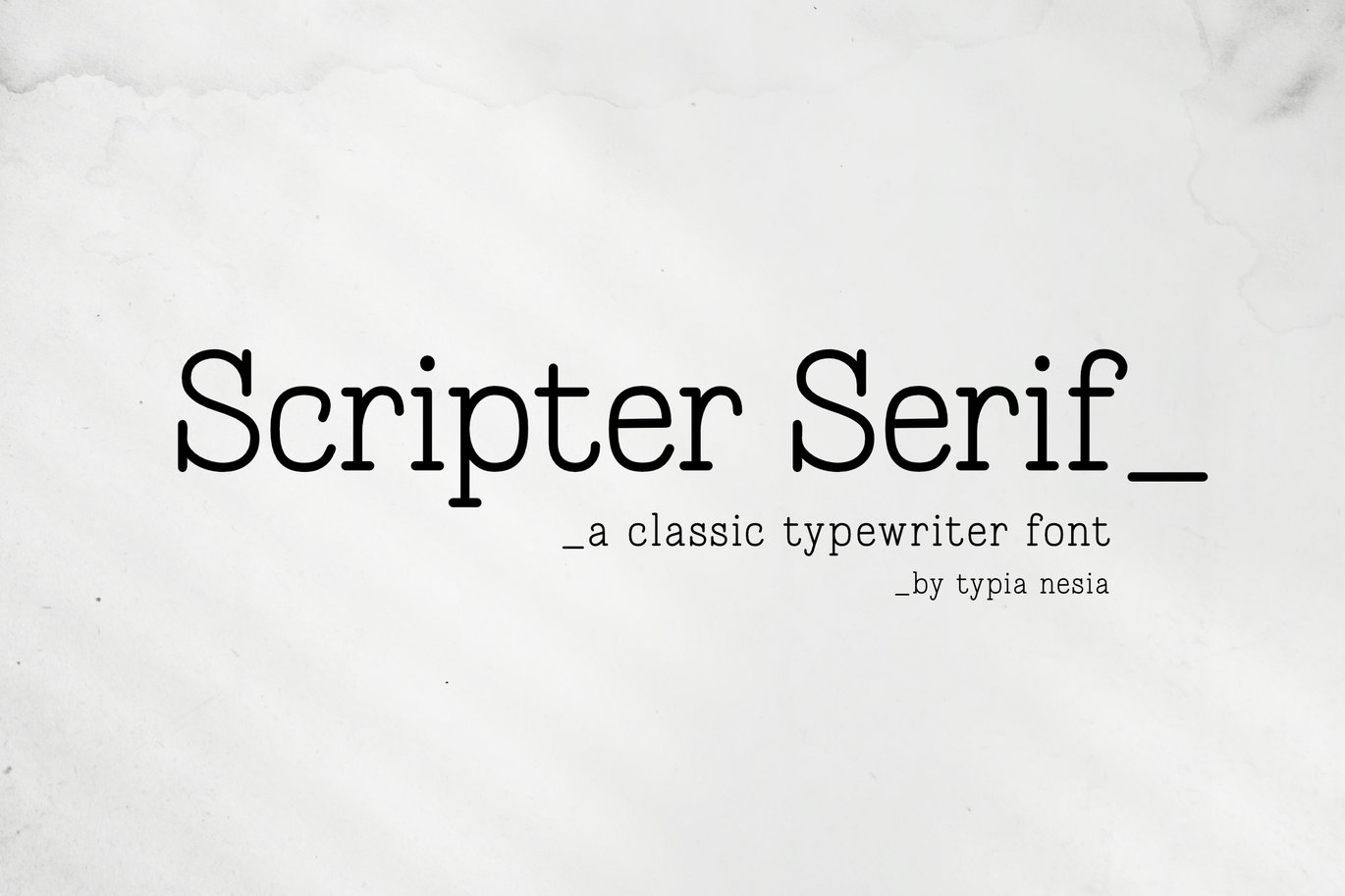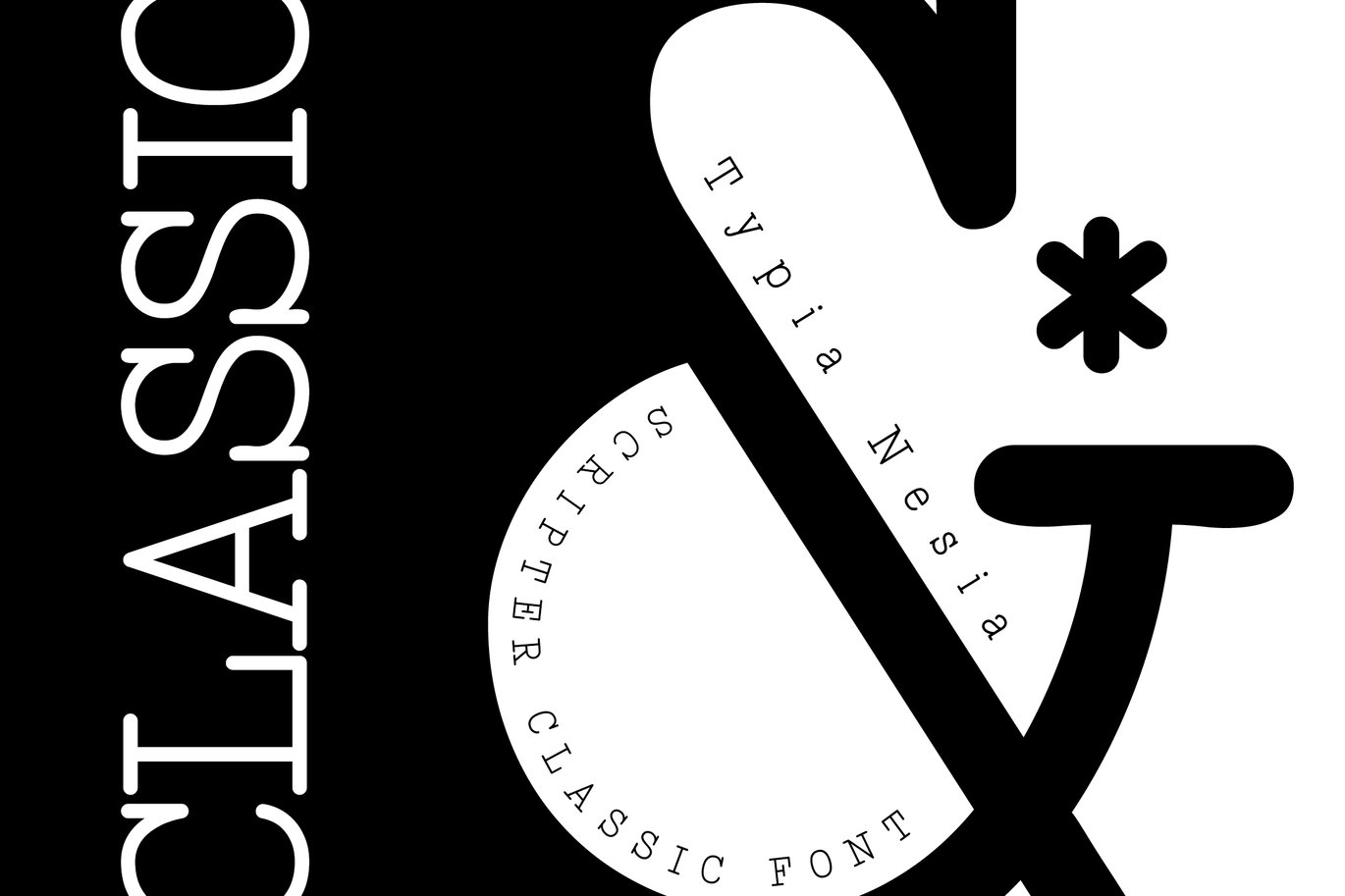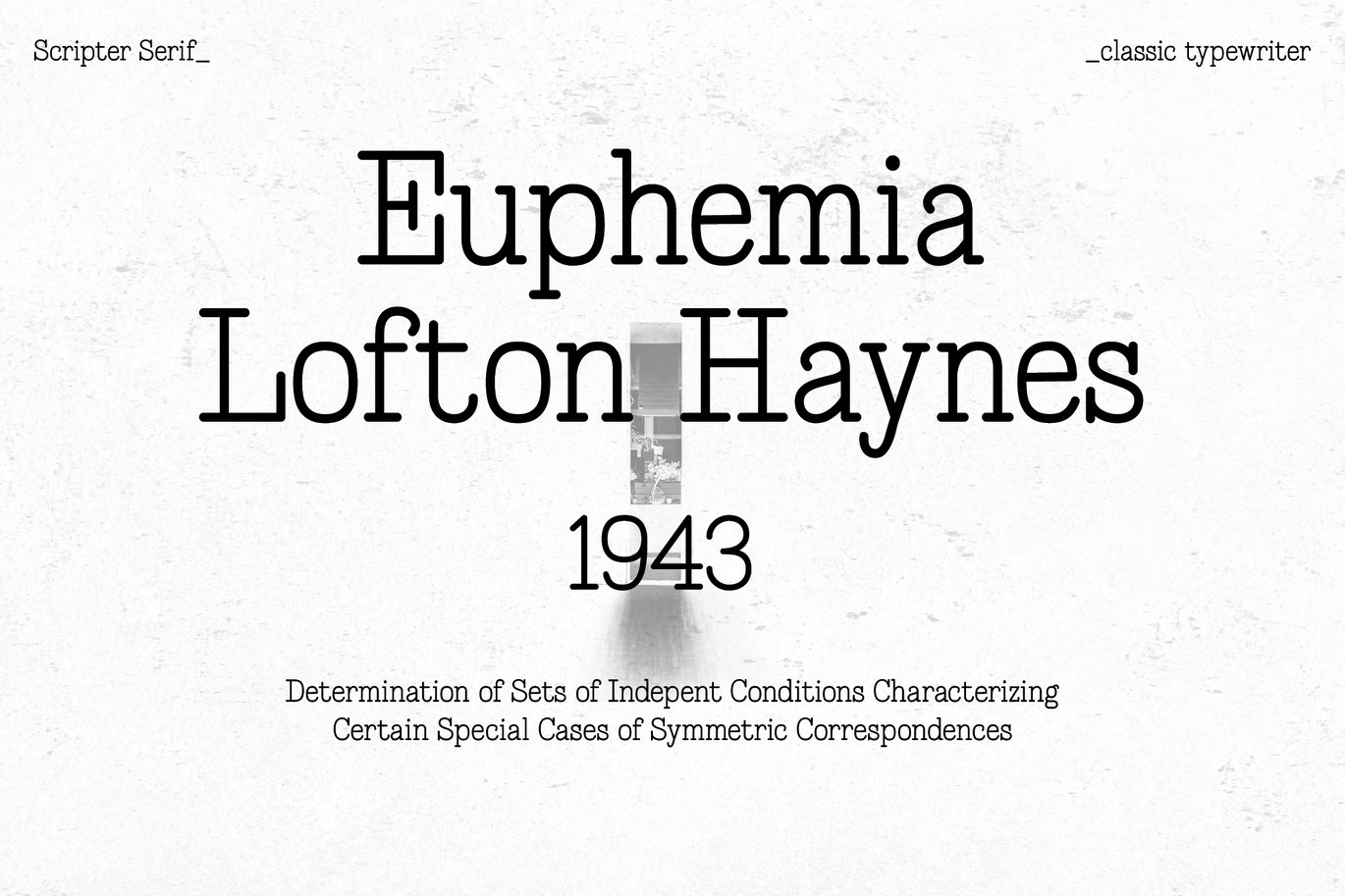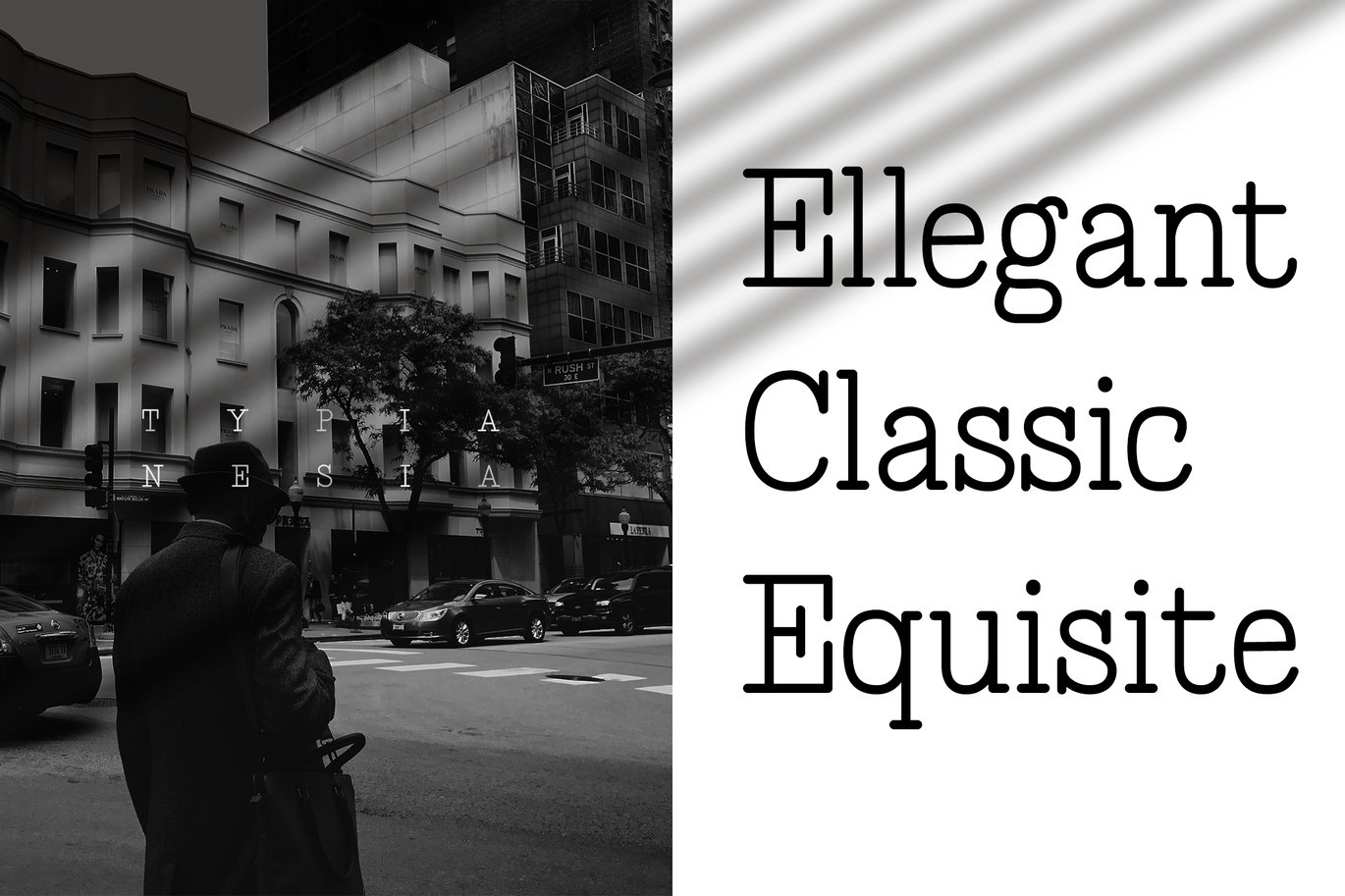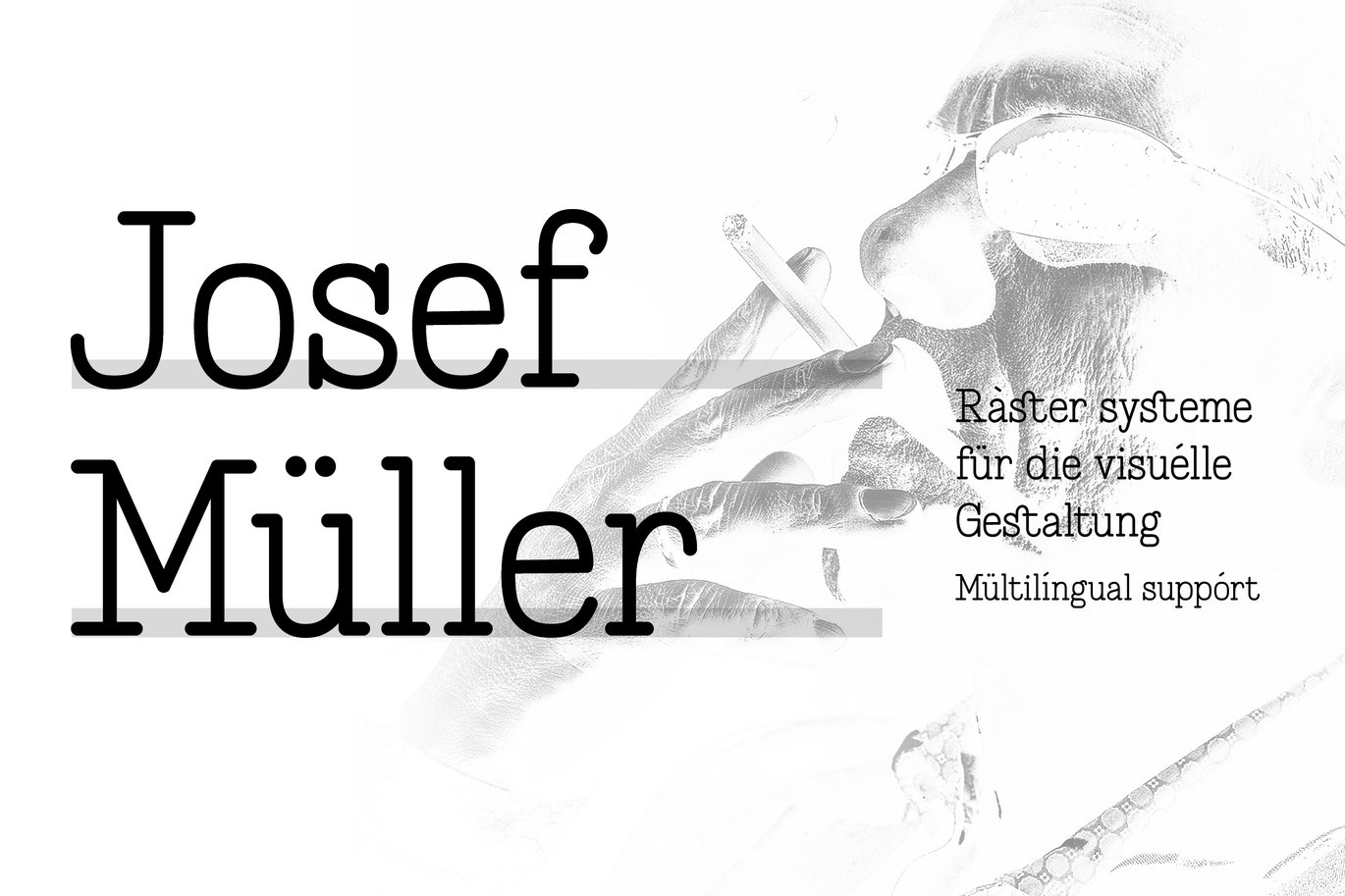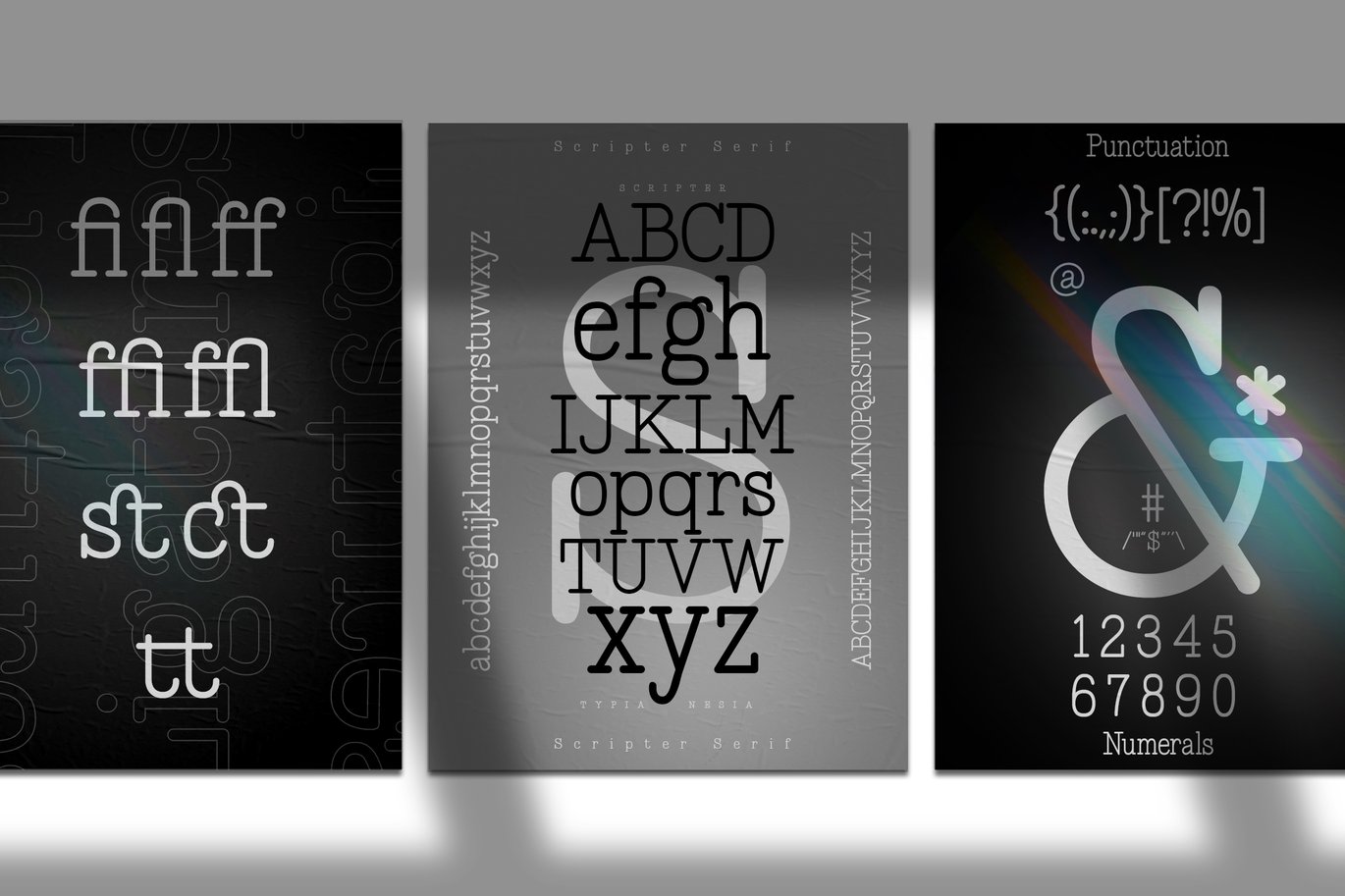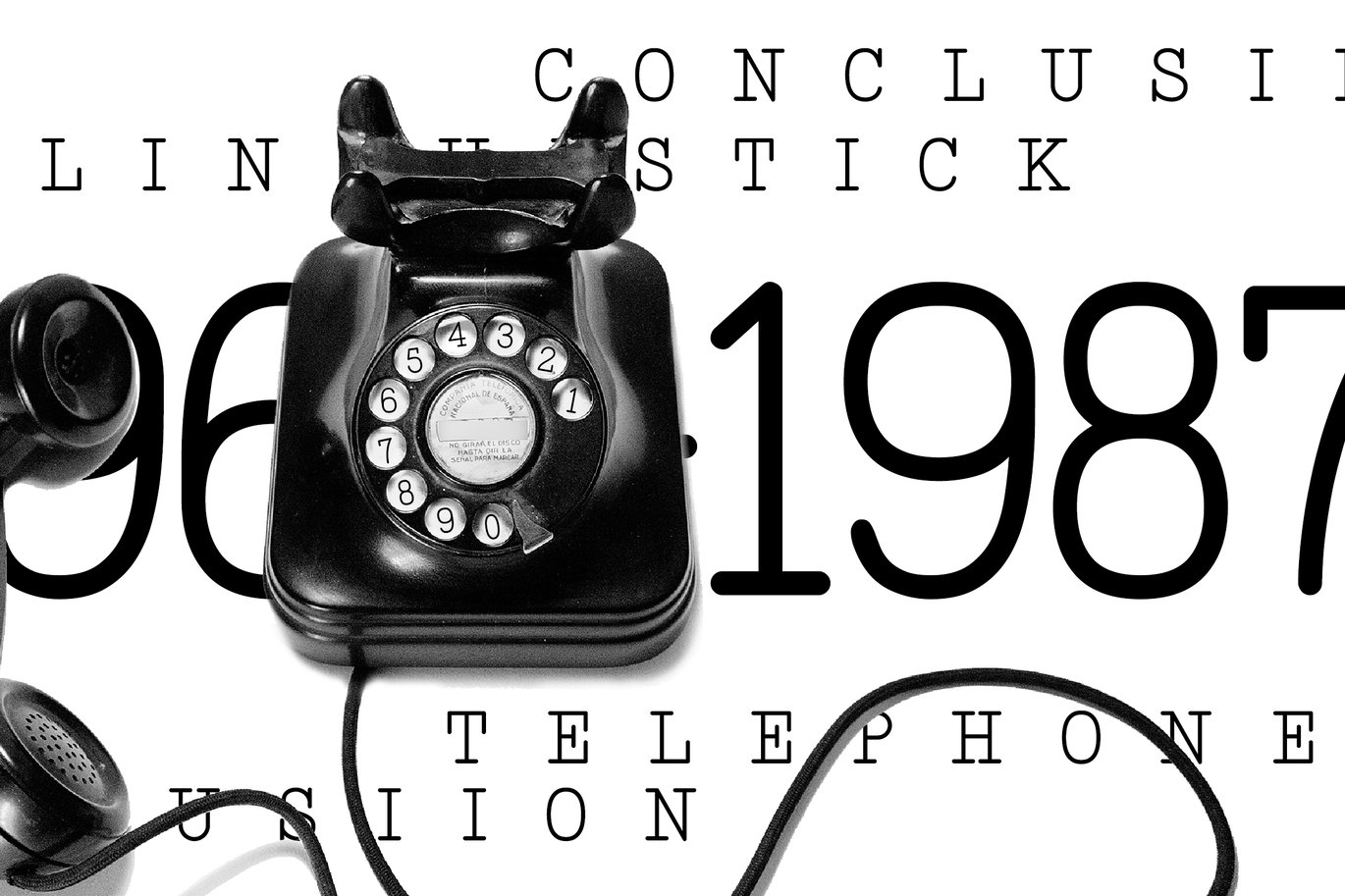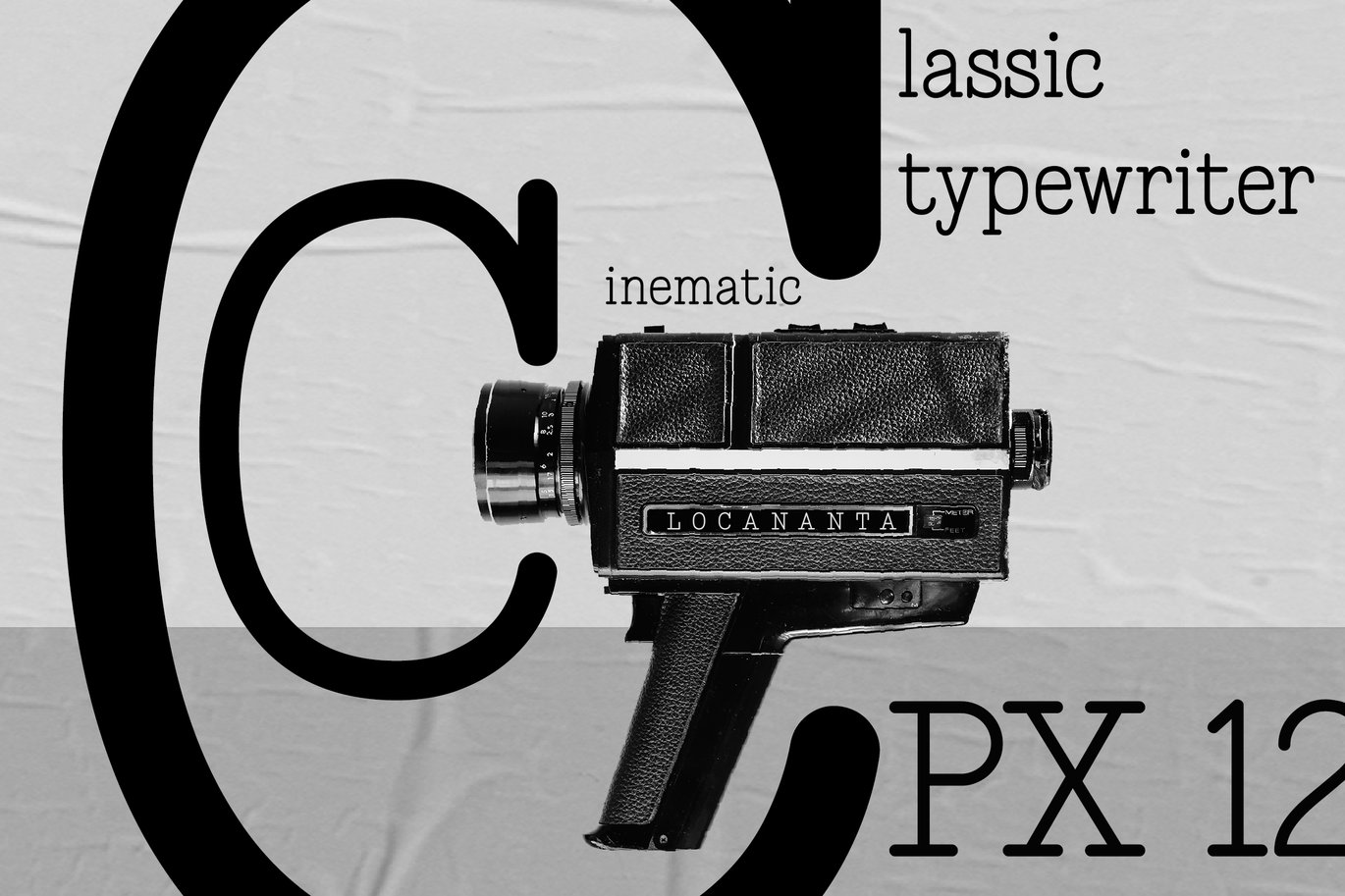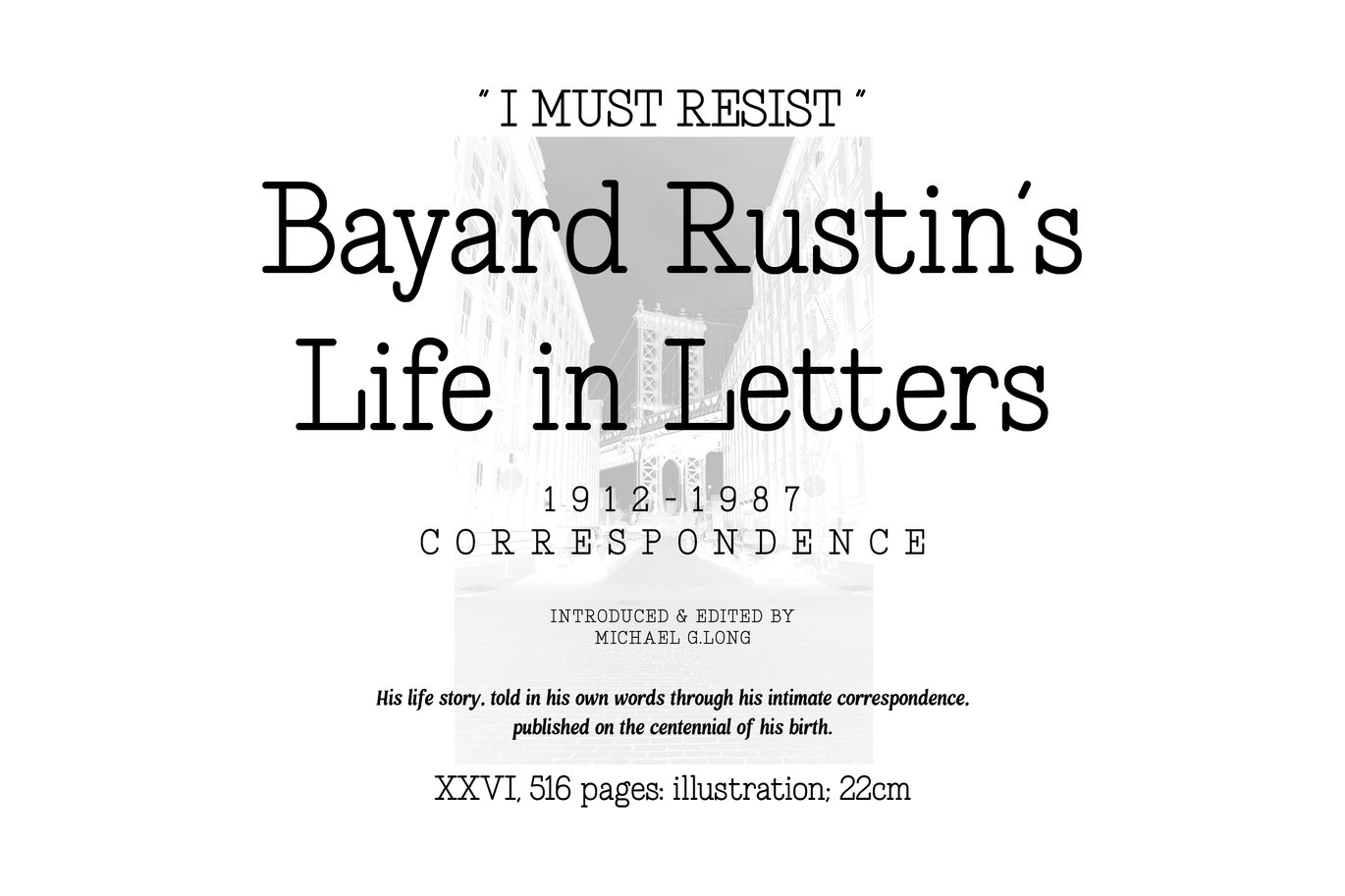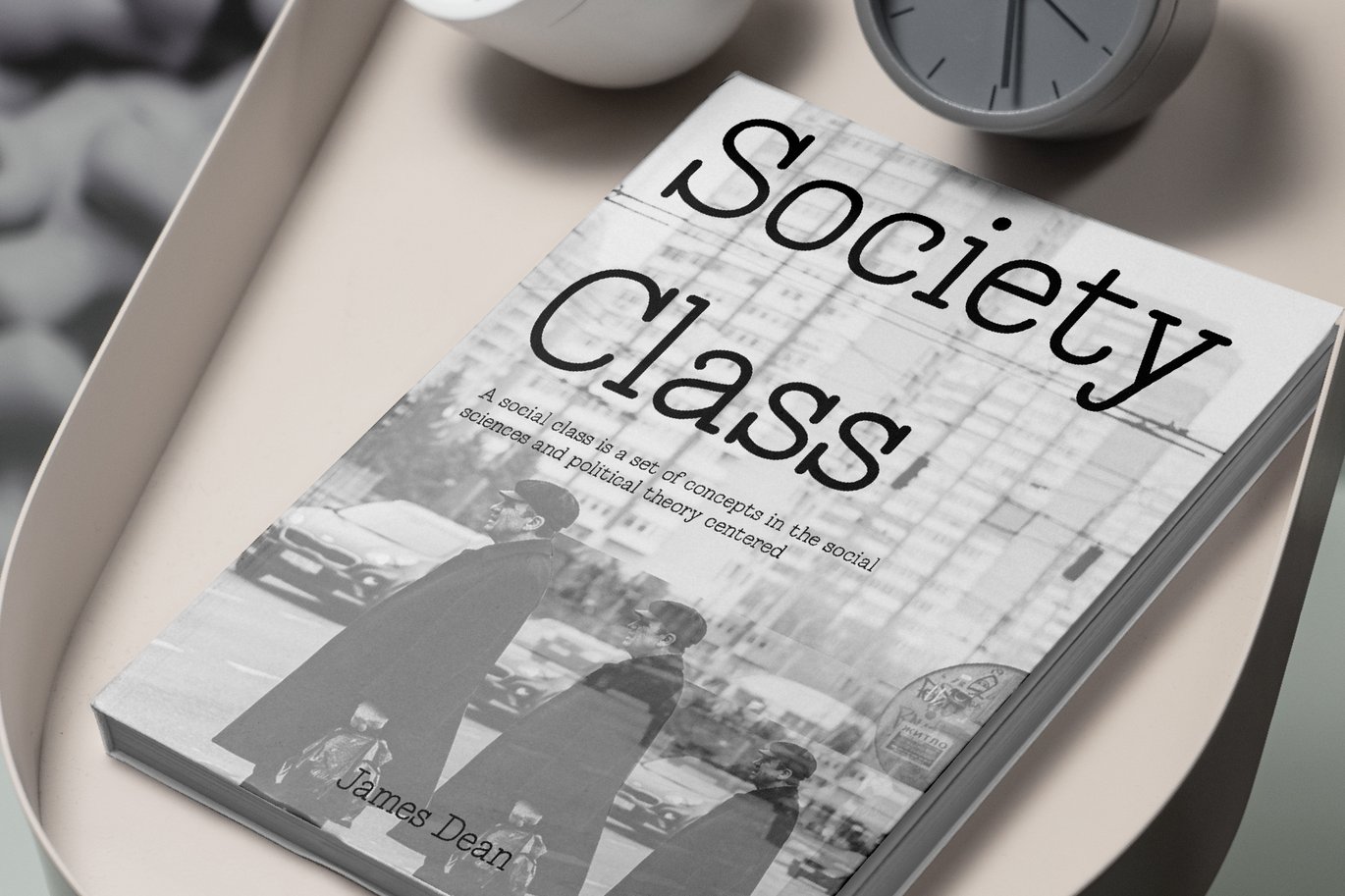
Scripter – Classic Typewriter Font
Scripter – Typewriter serif font.
Scripter – Typewriter Font is perfect for your up coming projects. Such as classic logo and branding, classic editorial design, magazine, fashion promotional, wedding planner branding, stationery design, blog design, advertising design, wedding card invitation, art quote, home decor, book / novel cover title, special events and any more.